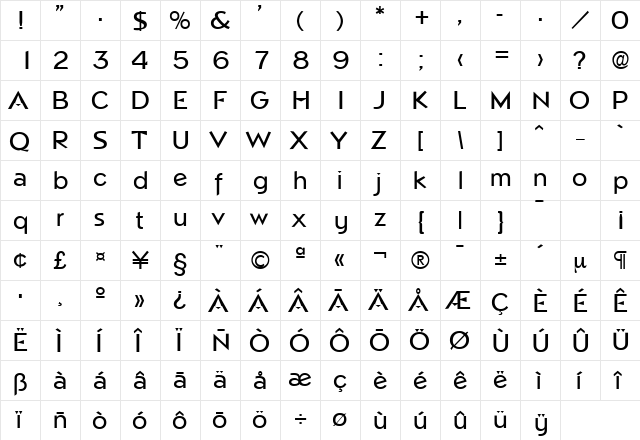
Napoli-Serial-Medium Regular
Design Context for Napoli-Serial-Medium Typeface
Napoli-Serial-Medium is a composed and adaptable typeface that performs quietly and consistently across a wide range of design contexts.
Pro Tip: Use Napoli-Serial-Medium in both headline and body roles to test its range before committing to a single application.